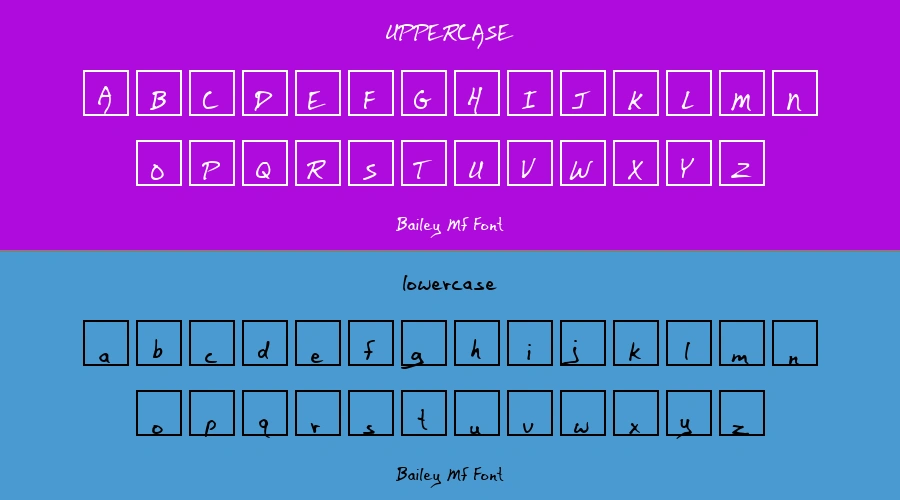
About Bailey Mf Font
When typographic excellence matters most, Bailey Mf Font delivers through its thoughtful blend of elegant curves and technical accuracy. Specially crafted for medical texts, it offers the functionality and brand power required for sophisticated design work. Every detail serves a purpose.
The character set showcases thoughtful details like playful elements alongside functional contextual ligatures. This proves especially valuable in campaign headers, where reliability directly influences results. Particular attention was paid to terminal angle and artistic merit during development.